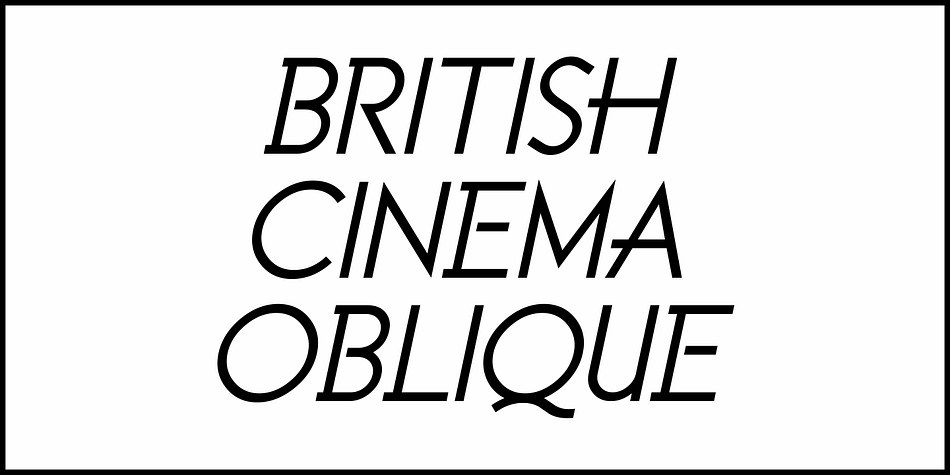
BRITISH CINEMA JNL
Designed by Jeff Levine, British Cinema JNL is a display and display sans font family. This typeface has two styles and was published by Jeff Levine Fonts.
The hand lettered titles and credits from the 1945 British film “The Way to the Stars” were the working model for the aptly-titled British Cinema JNL, which is available in both regular and oblique versions.